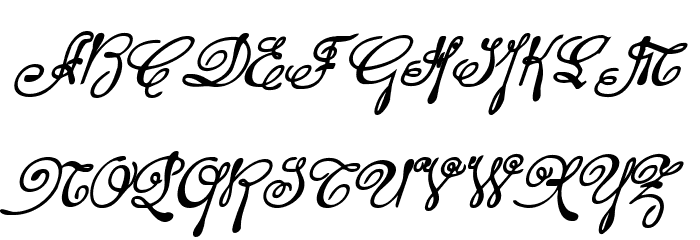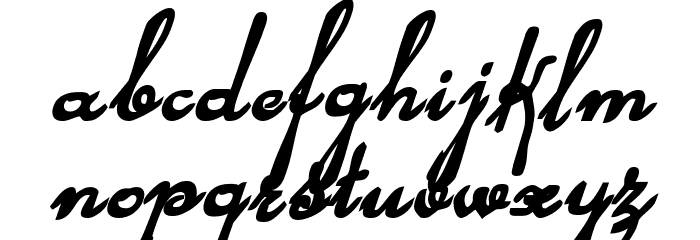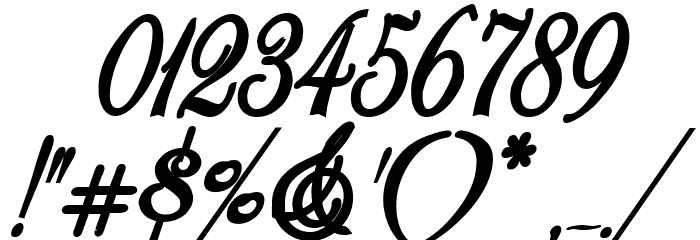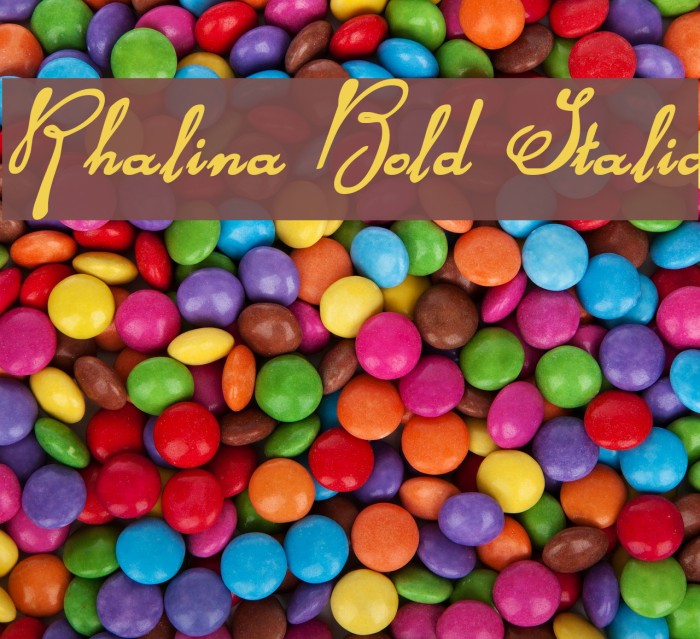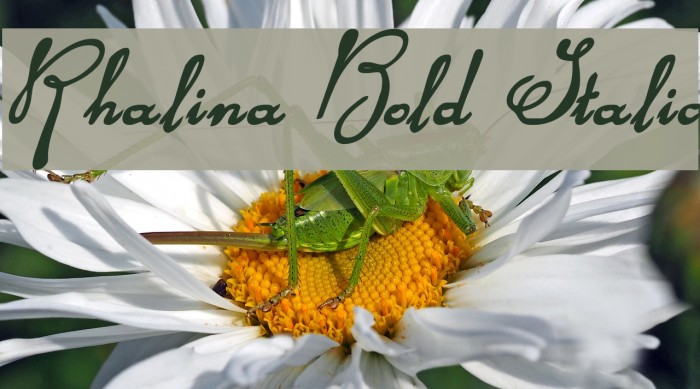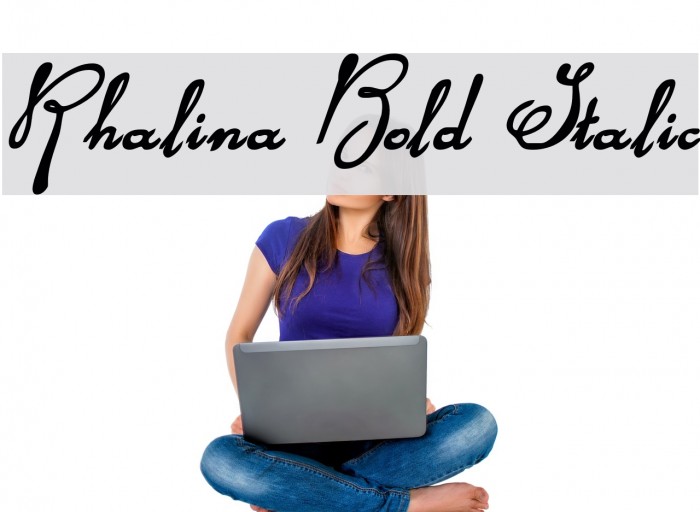
Rhalina Bold Italic Font
This font exhibits a bold and italicized script style, characterized by its flowing, cursive letterforms that convey elegance and sophistication. The uppercase letters are ornate, with intricate loops and swirls, while the lowercase letters maintain a consistent slant, enhancing the font's dynamic appearance. The numerals are equally stylized, matching the overall aesthetic with their curved lines and distinctive flair. Special characters are integrated seamlessly, maintaining the decorative theme. This font is ideal for projects that require a touch of elegance and creativity, such as invitations, branding, and artistic designs.
A bold, italic script font with elegant, flowing letterforms.
- Proposed Projects: Ideal for wedding invitations, luxury branding, artistic posters, and elegant stationery.
- Use Case: Logos, Invitations, Artistic Designs